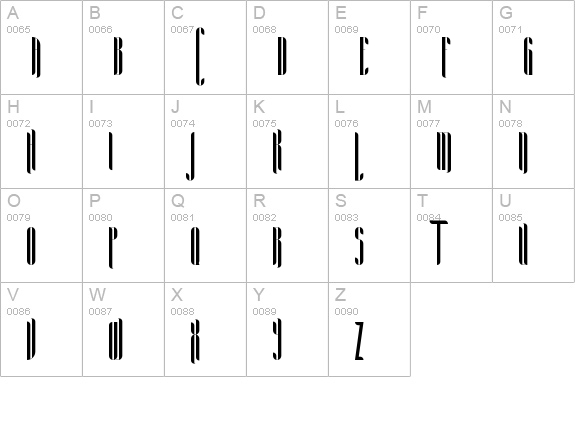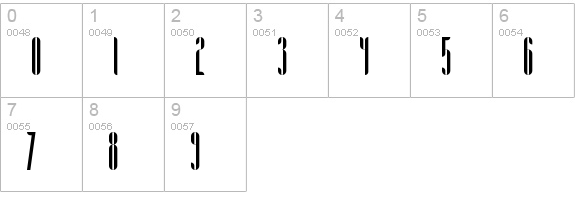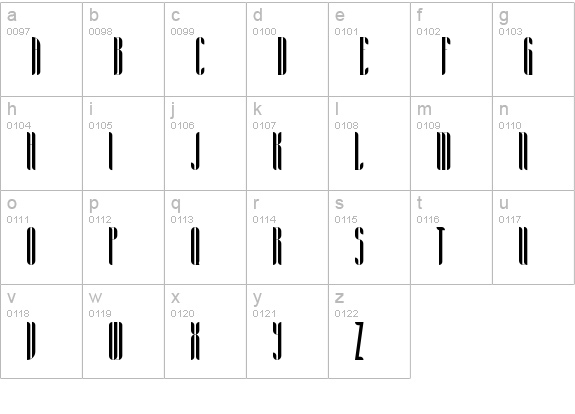
Aria Font Details
Aria is a free for personal use font in the General > Serif category, designed by vpcreativeshop. It has been downloaded 96 times and is available for Windows, Mac and Linux.
Aria font is a stunning and elegant typeface that exudes sophistication and style. With its sleek lines and graceful curves, Aria is perfect for adding a touch of class to any design project. Whether you're creating a wedding invitation, a logo for your business, or a social media graphic, Aria will make your text stand out in a beautiful way.